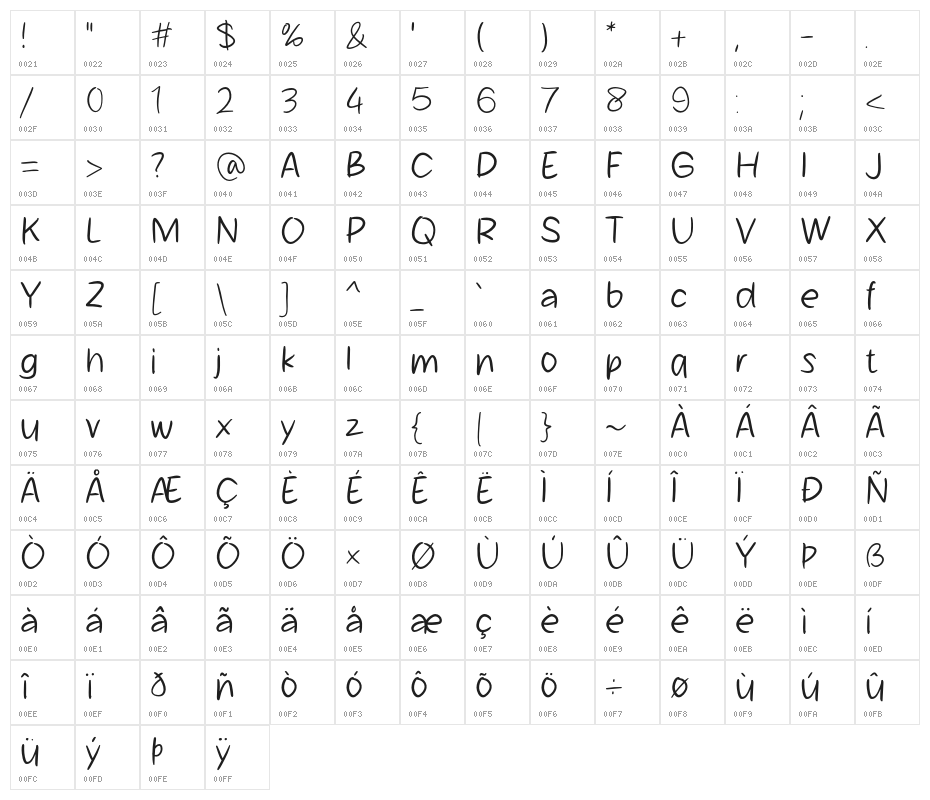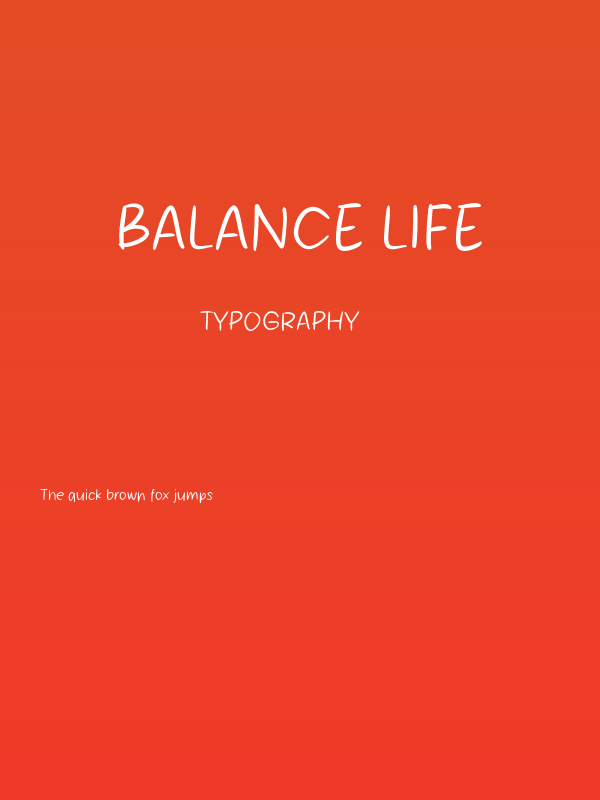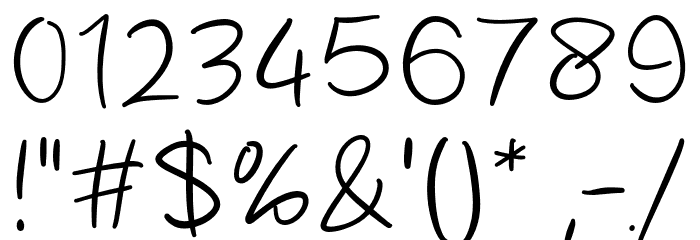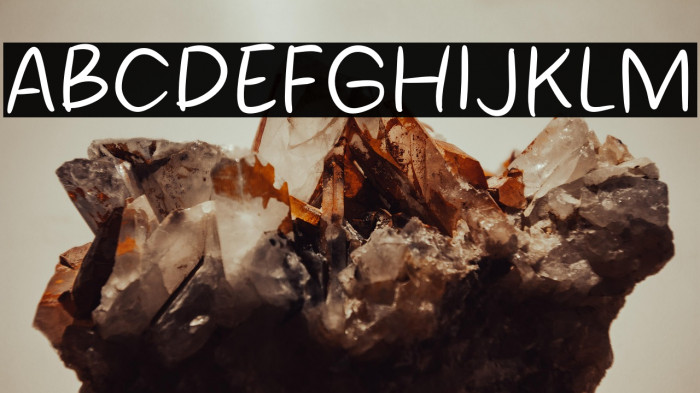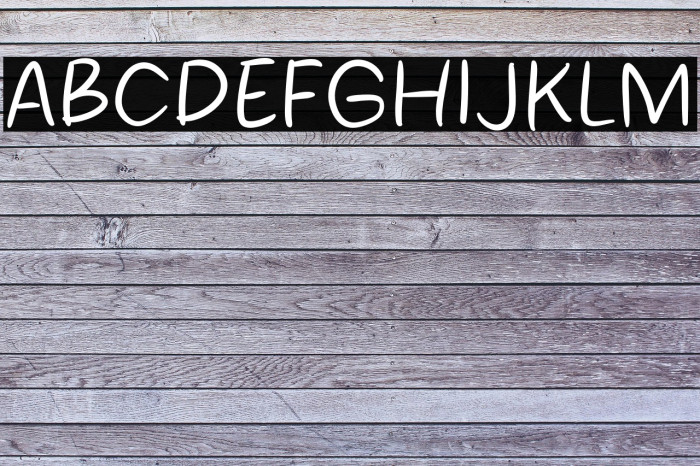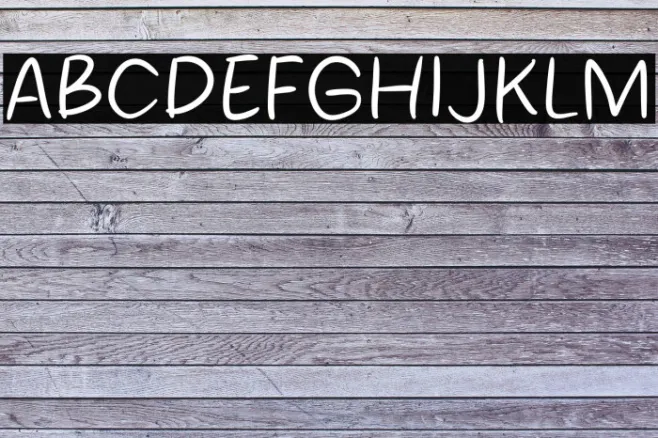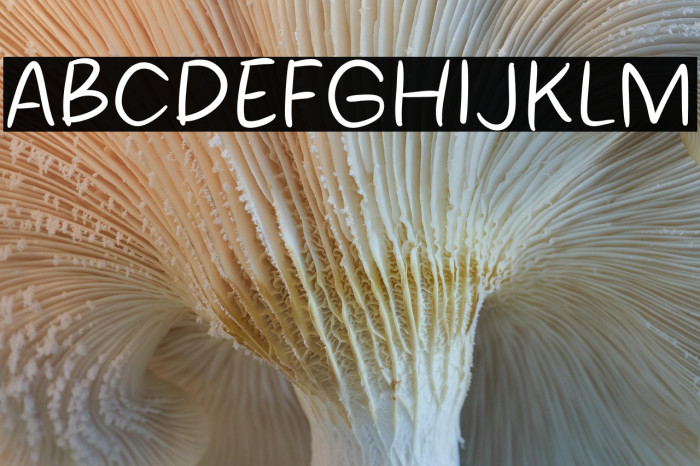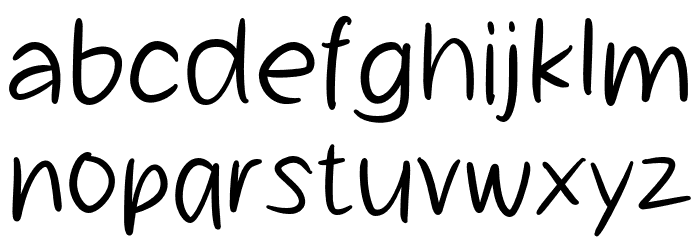
Balance Life Font
Balance Life Description
This font exhibits a playful and casual handwritten style, characterized by its smooth, rounded edges and slightly uneven baseline, which adds a touch of informality and warmth. The letters are well-spaced, ensuring readability while maintaining a friendly appearance. The strokes are consistent in thickness, providing a balanced look that is neither too bold nor too light. The numerals and special characters follow the same style, ensuring uniformity across all glyphs. This font is versatile, suitable for projects that require a personal touch, such as greeting cards, invitations, or informal branding.
| Use Case | Informal branding, personal projects, greeting cards. |
| Proposed Projects | Ideal for greeting cards, invitations, informal branding, and personal projects. |